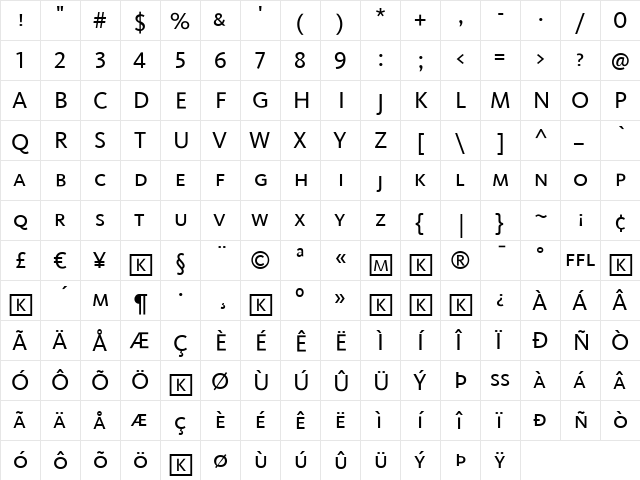
Kievit Regular
Design Context for Kievit Typeface
Kievit takes a measured approach to typography — its balanced proportions and neutral character make it a reliable workhorse for both digital and print work.
Pro Tip: Pair Kievit with a font of contrasting weight or personality to build a more expressive typographic hierarchy.